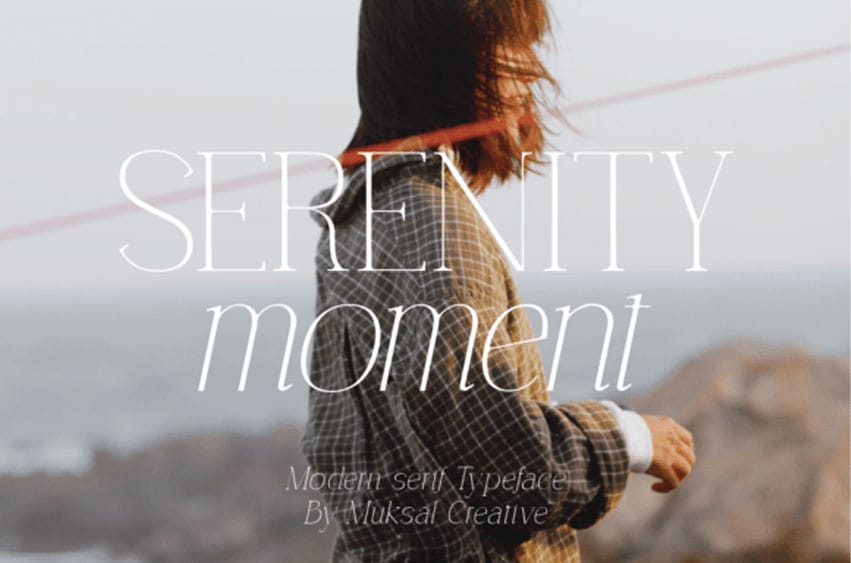
Serenity Moment Font is an elegant and modern serif font.
Stylish, graceful, and flowing, this font will definitely elevate the look of any of your beautiful creations while keeping them grounded and natural.